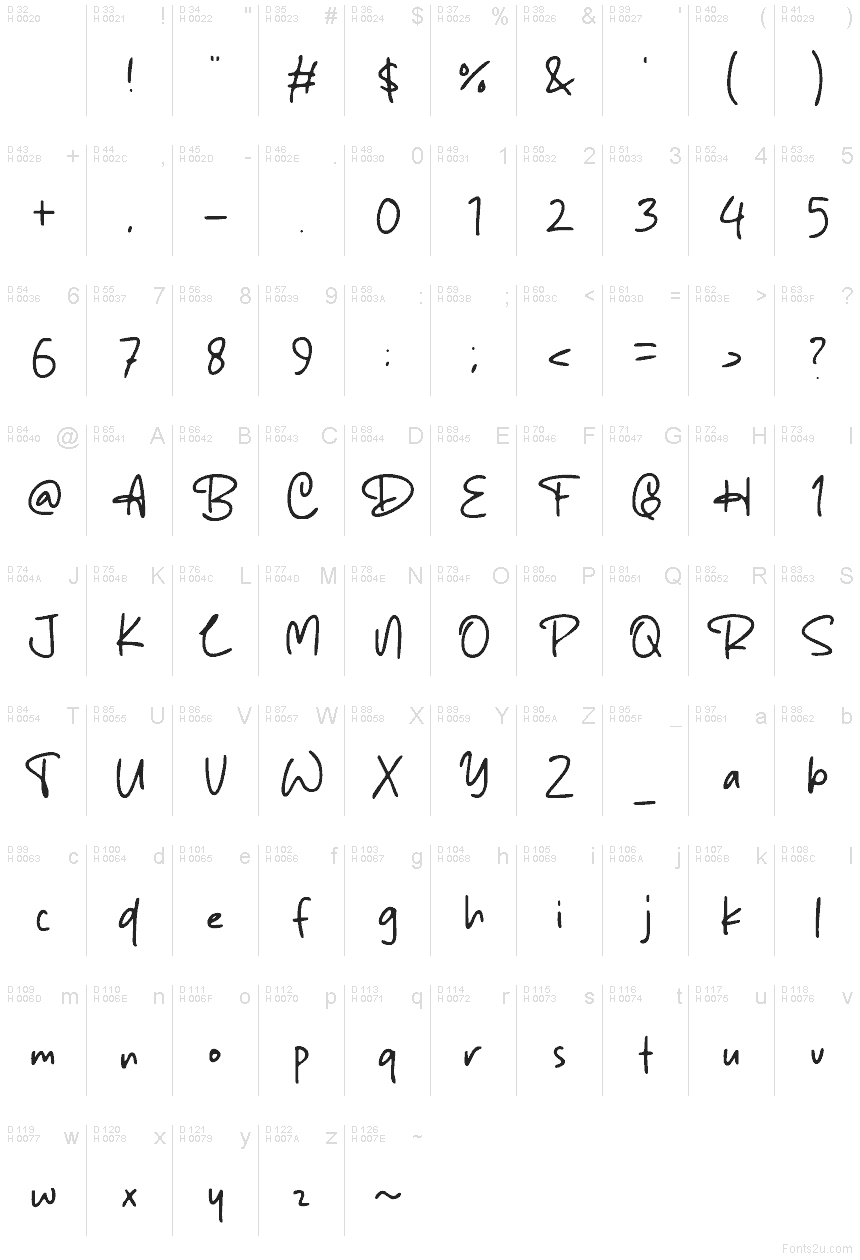
Inktopia
Inktopia font by Origin Type is a free handwritten font whose casual, freeform style is wonderfully emphasized thanks to its organic flow and modern flair that make it distinct from other handwritten goodies. This gem has everything you are looking for in a quality handwriting font: unpredictability, originality, and an eye-catching yet clean appearance.
For professional design projects that speak the language of typography like branding campaigns, product packaging design, advertising posters and flyers; expect cheerful outcomes with this pick. Other uses include logo designs for non-digitally focused businesses such as cafes or artisan workshops along with website banner developments reflecting pre-digital aesthetics plus blog headers where interaction happens first visually through text rather than words themselves.